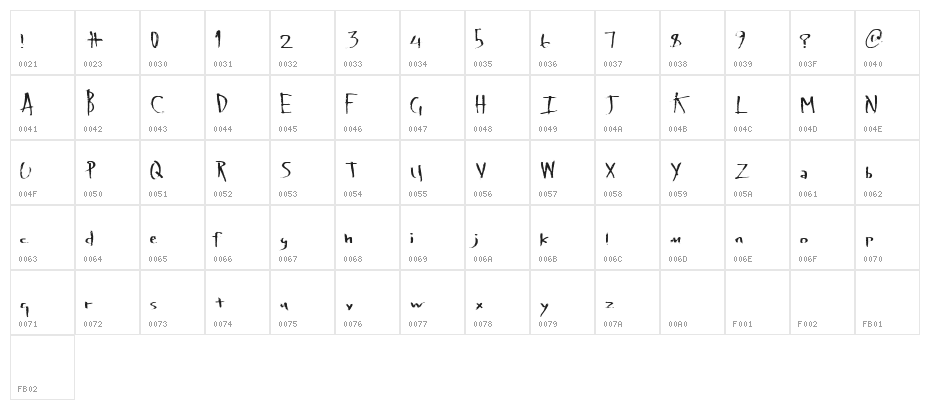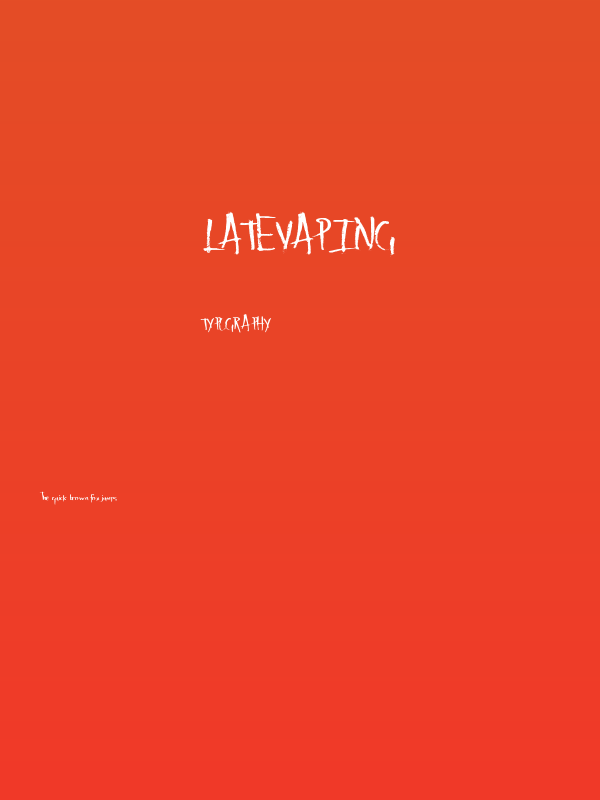
LateVaping Font
LateVaping Description
This font exudes a raw, expressive energy with its brush-like strokes and uneven character heights. The uppercase letters are bold and dynamic, with a sense of movement that suggests a hand-drawn style. The lowercase letters maintain this energetic feel, with some characters featuring unique, artistic flourishes. Numbers and special characters are consistent with the overall aesthetic, adding to the font's distinctive personality. The irregularity in stroke width and the slightly distressed appearance give it a grunge-like, rebellious vibe, making it perfect for projects that require a bold statement.
| Categories | Script |
| Overall Style | Decorative, Grunge |
| Use Case | Headlines, Posters, Artistic Designs |
| Proposed Projects | Ideal for album covers, posters, graffiti art, and any design needing a bold, artistic touch. |